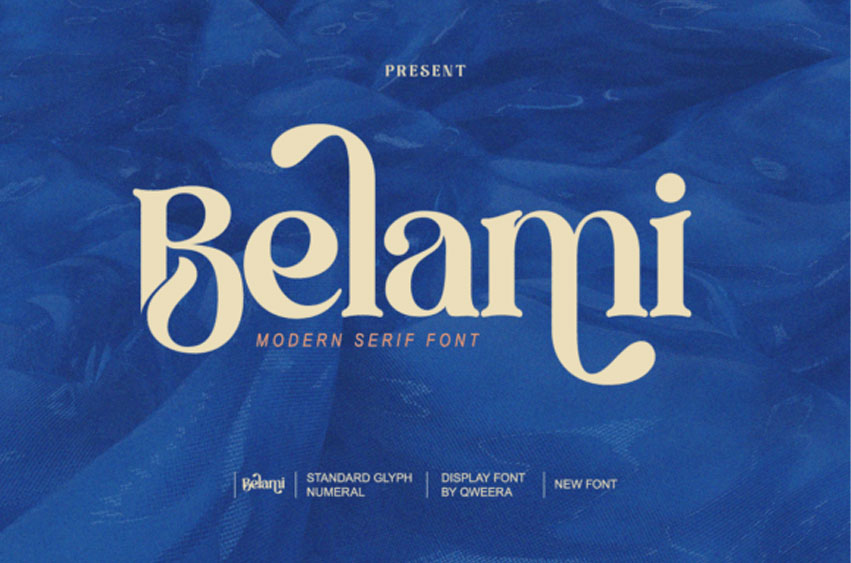
Belami Font
Belami Font is a refined modern serif font with graceful curves and high-contrast strokes, making it perfect for luxury branding, editorial layouts, fashion headlines, and stylish logos.
With its elegant ligatures and distinctive letterforms, Belami blends classic sophistication with a contemporary edge. Each character is thoughtfully crafted to provide a timeless aesthetic, while remaining highly legible and versatile.
Whether you’re designing for print, packaging, or digital, the Belami font adds elegance and strength to any visual project.